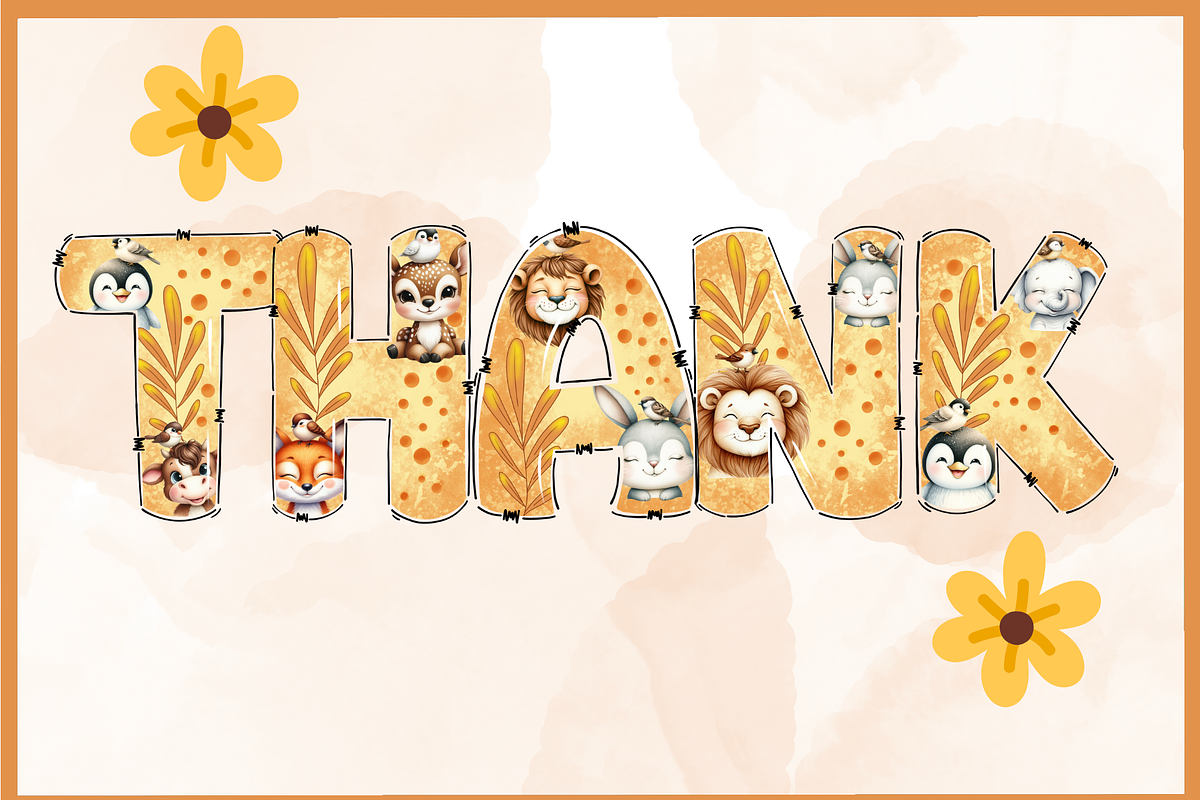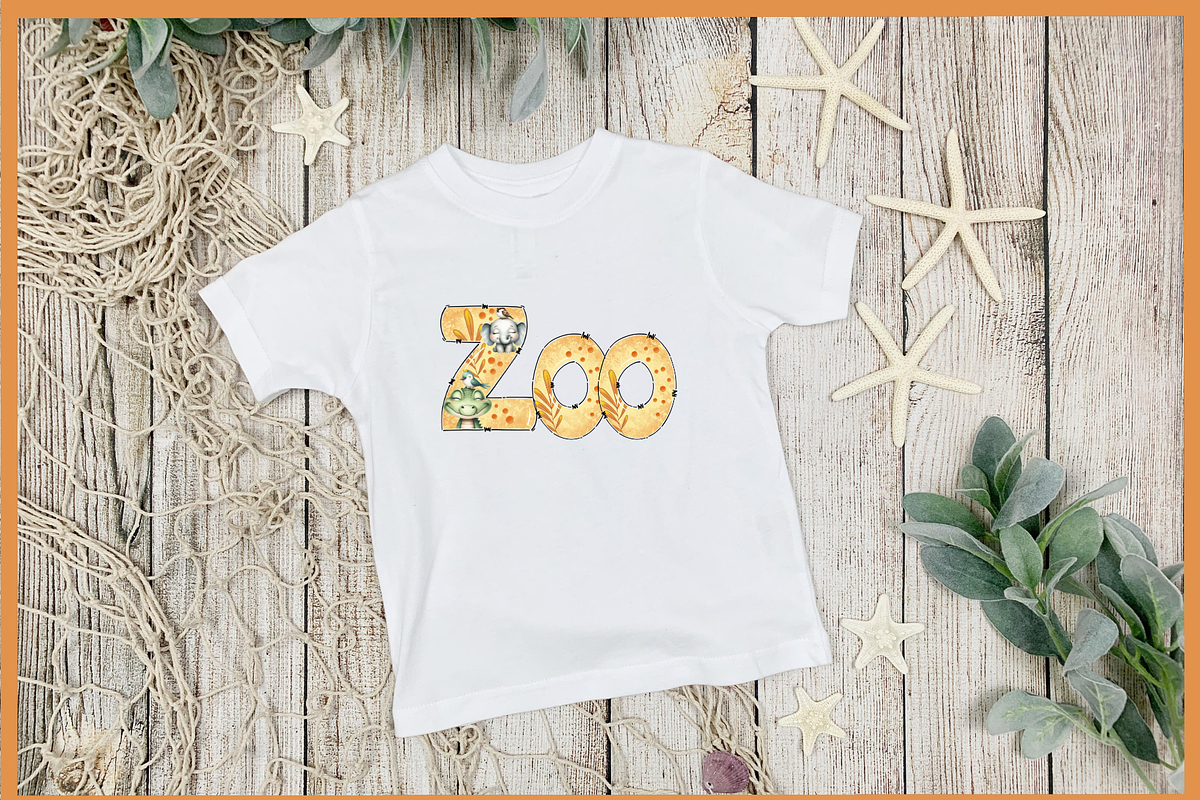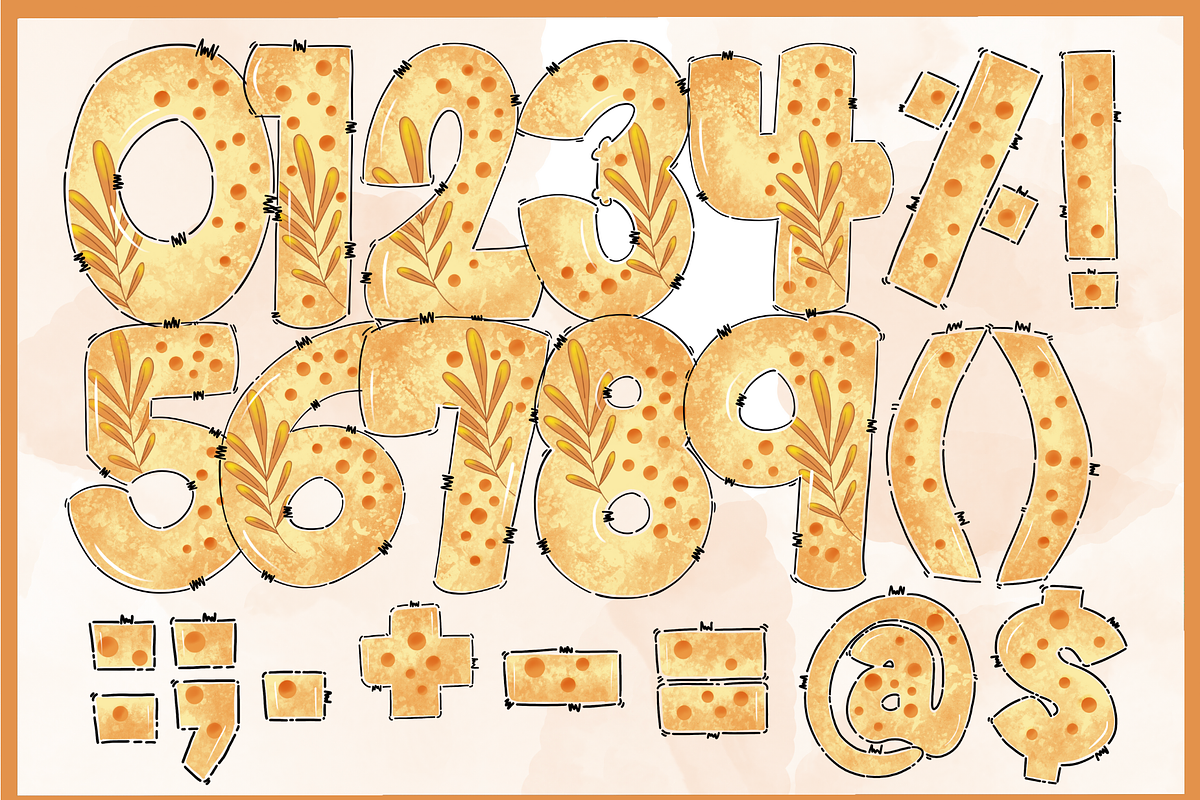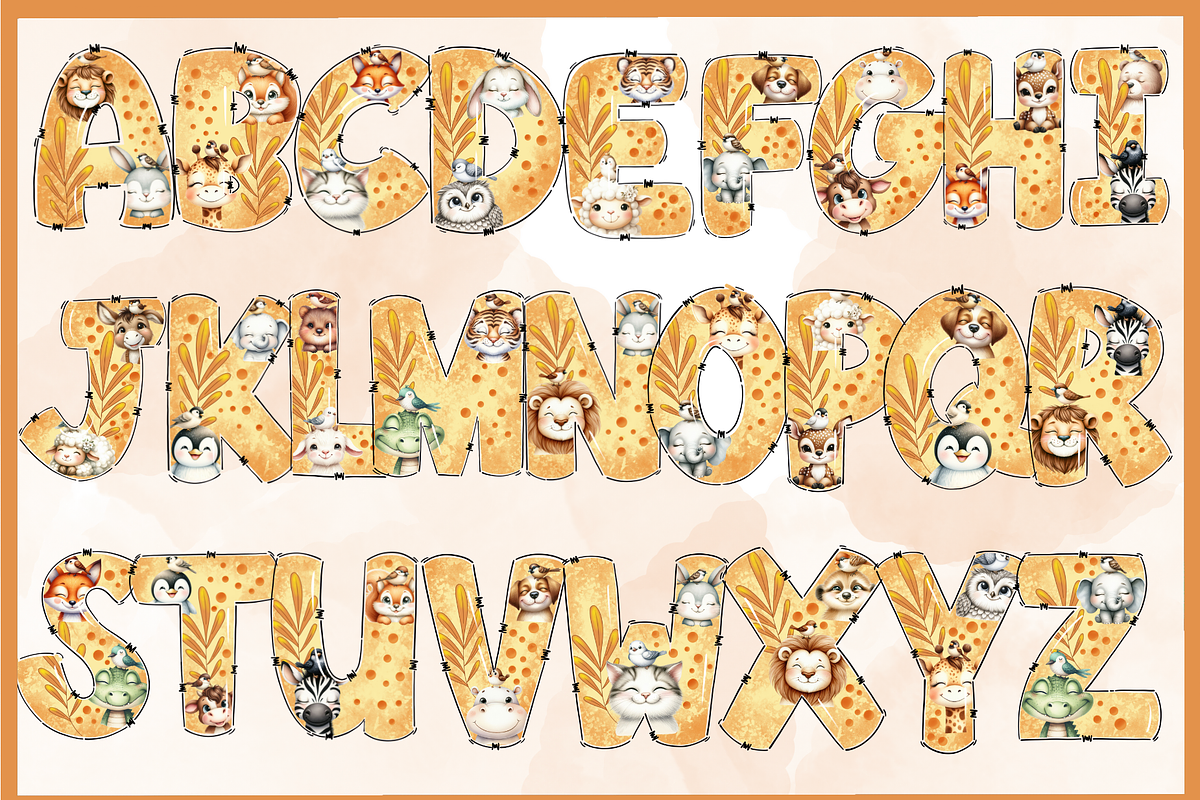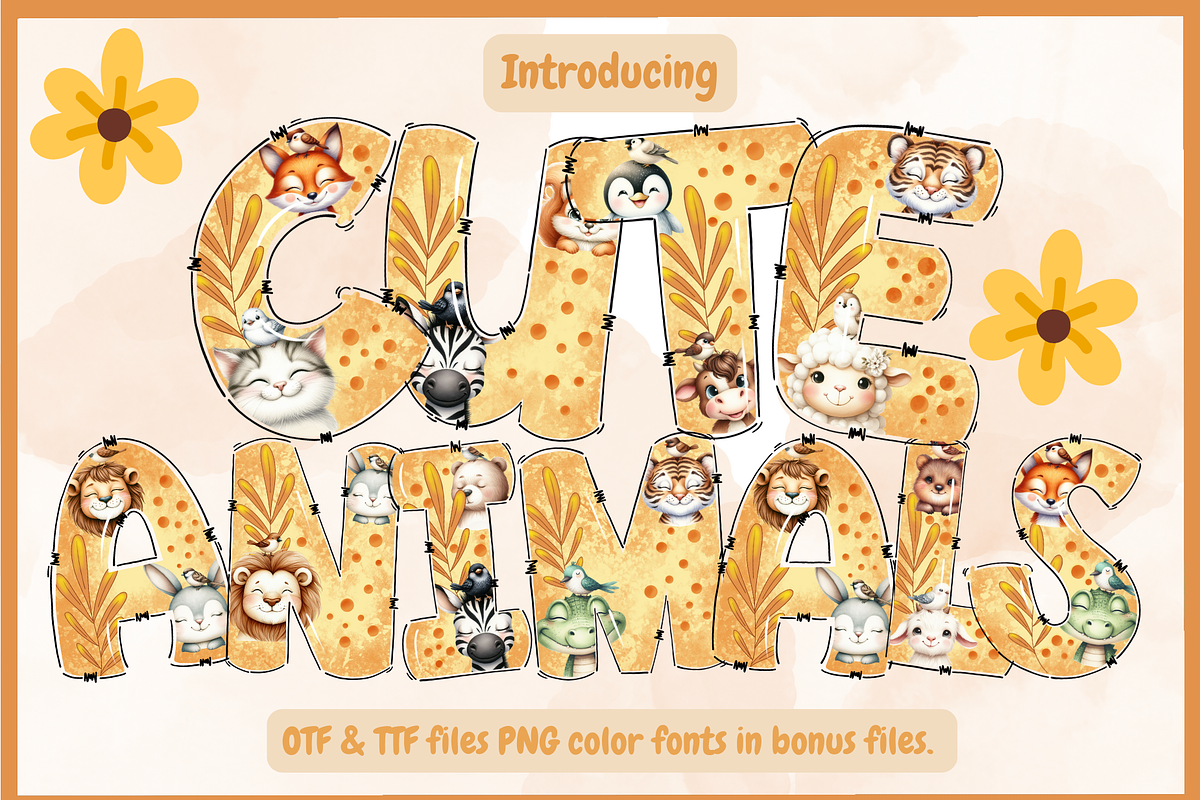
Cute Animals-PNG fonts
Cute Animals Font
Suitable Super Cute Handwriting Front and colorful fonts,Simple Style Presentation Education Advertising Illustration.